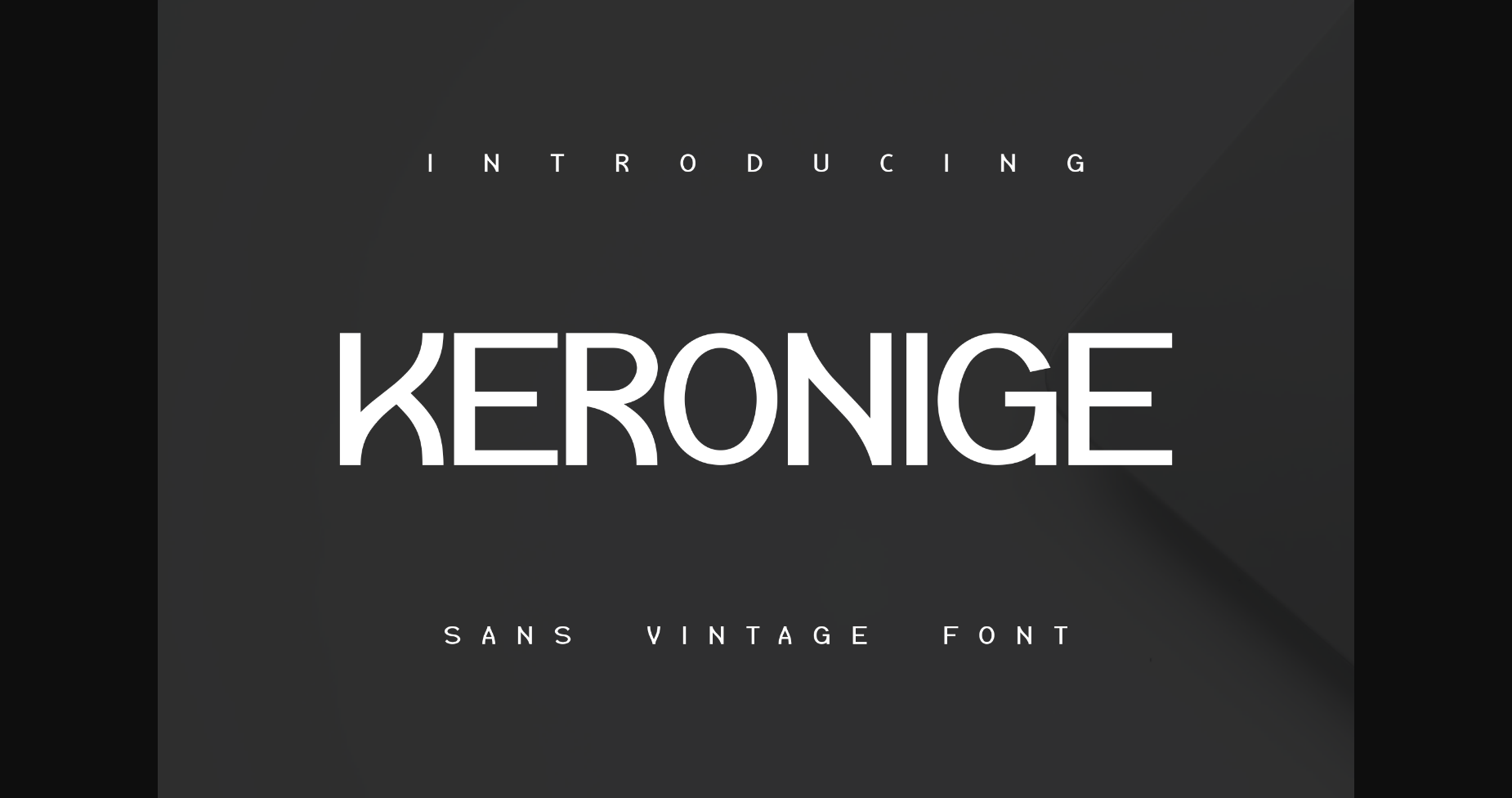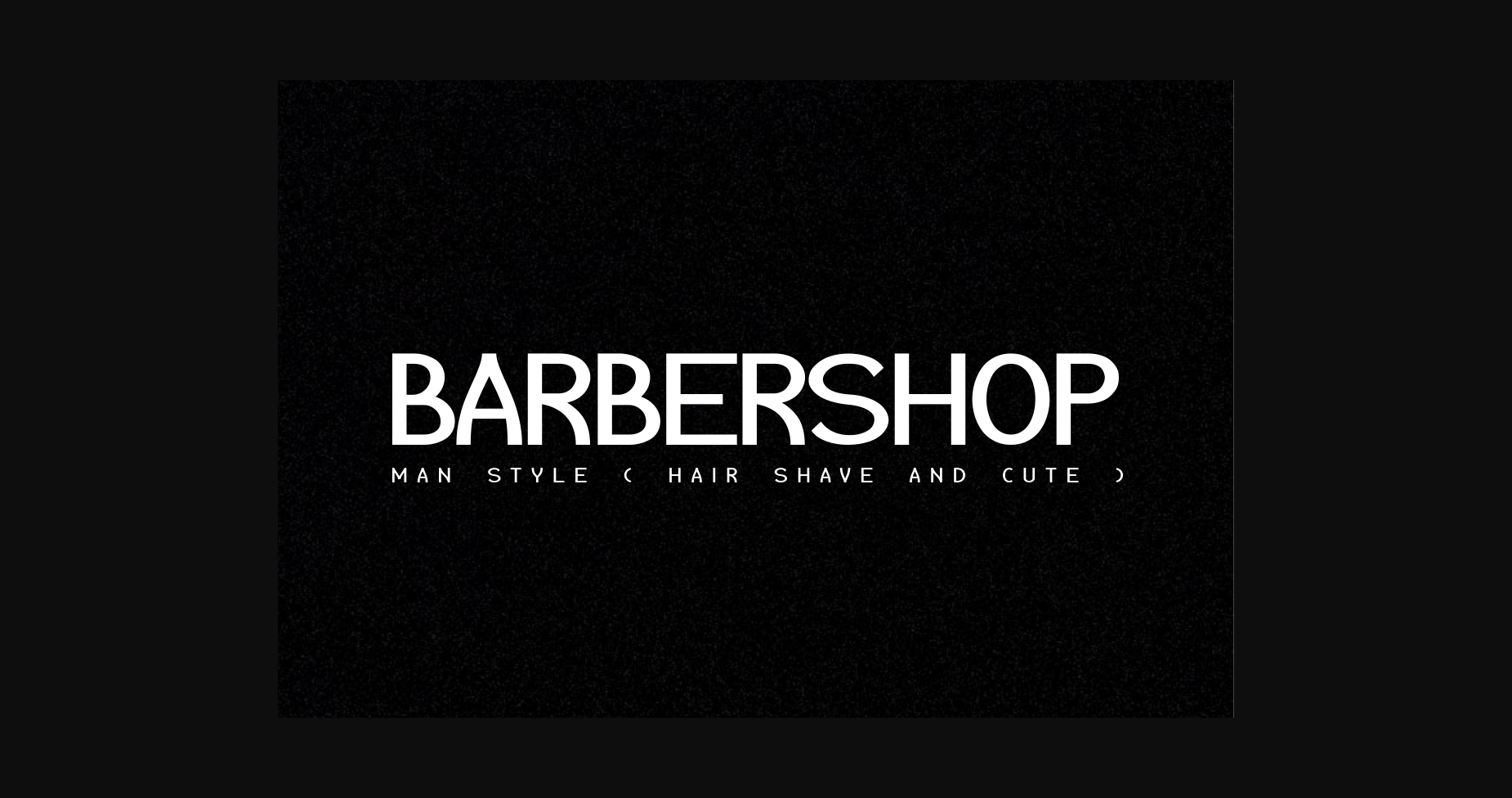
About Keronige Font
Keronige Font: A stylish and contemporary sans serif typeface that embodies modernity and simplicity. With its clean lines and balanced proportions, Keronige Font brings a touch of elegance to your designs. Ideal for branding, packaging, and editorial projects, this versatile font seamlessly blends professionalism with a hint of sophistication.